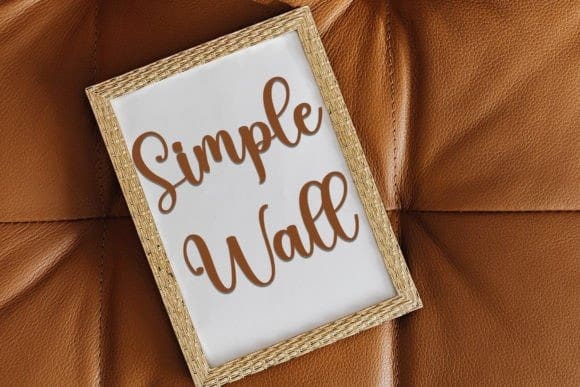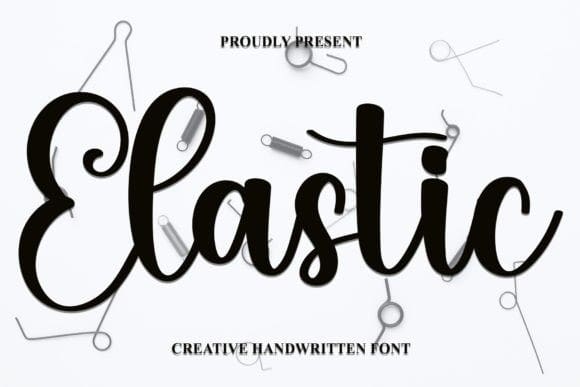
Elastic Script Font
Elastic Script Font is a neat and casual handwritten script font. It’s perfectly suitable for making flyers, wedding invitation cards, logos, banners, birthday cards, social media posts, and thumbnails.